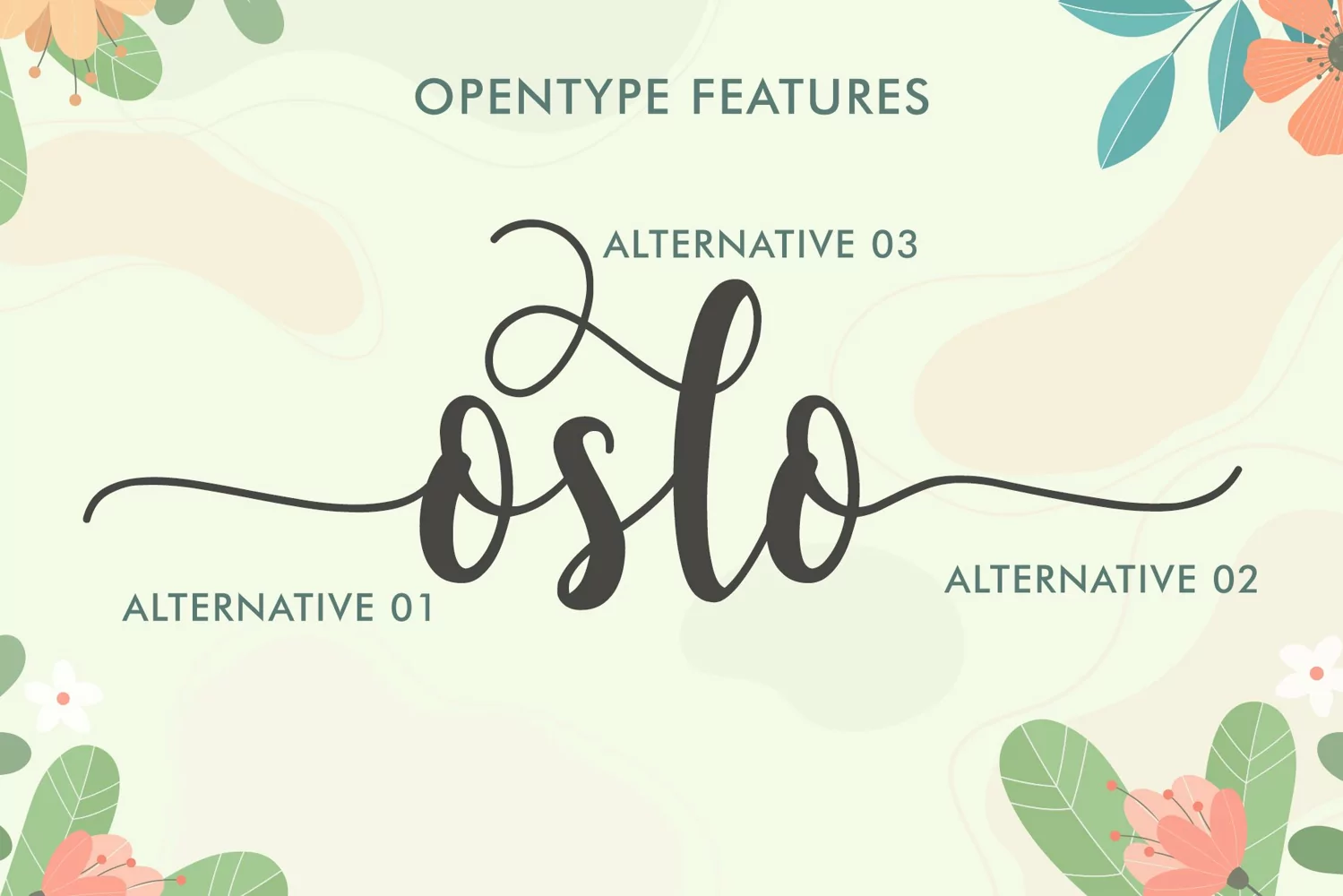
Monday Spring is an assertive and distinct script font.
Expertly designed to make your creation look out of this world, this font will look gorgeous on a variety of ideas.
Multilingual Support
Alternate Character
Ligature Character